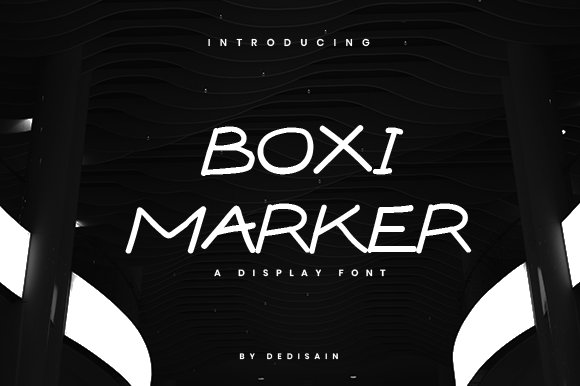
The Joy of Typography: Unveiling the Magic of Boxi Marker Font
As designers, we’ve all been there – staring at a blank canvas, waiting for that spark of creativity to strike. It’s in these moments of quiet contemplation that we discover the beauty of typography. For me, it was the discovery of the Boxi Marker Font that reignited my passion for design. This delightful display font is more than just a collection of letters – it’s a reflection of love and dedication poured into every stroke.
Boxi Marker Font is designed to bring a touch of whimsy and charm to any project. With its playful, hand-drawn feel, it’s perfect for designers looking to add a personal touch to their designs. Whether you’re creating a logo, social media graphics, or a wedding invitation, Boxi Marker Font is sure to bring a smile to your face and a touch of warmth to your audience.
Key Features of Boxi Marker Font
- Unique Characteristics: Boxi Marker Font features a unique, hand-drawn style with bold lines and geometric shapes, giving it a distinctive and eye-catching appearance.
- Typography: The font has a clean, modern typography with clear letterforms and precise spacing, making it highly legible and easy to read.
- Customization: The font includes a range of OpenType features, including ligatures, swashes, and ornaments, allowing designers to add a personal touch to their designs.
Boxi Marker Font Review
Overall, I’m quite impressed with Boxi Marker Font. It has a unique, playful vibe that can add a lot of character to your designs.
- Unique, hand-drawn style that sets it apart from more traditional fonts
- Good for use in creative fields like art, design, or even kids’ products
- Clean and crisp lines make it easy to read at various font sizes
- May not be suitable for formal or professional applications due to its casual, playful nature
- Some letters may be difficult to read at very small font sizes
- Limited language support, may not be suitable for multilingual designs
Overall, I think Boxi Marker Font is a great choice for designers looking to add a bit of personality to their projects. While it may not be the best fit for every application, its unique style and versatility make it a great addition to any designer’s toolkit.
Boxi Marker Font Practical Application Guide
Tips for Getting the Most Out of Boxi Marker Font
Use bold font weights to create a striking effect.
Combine Boxi Marker Font with other fonts to create a unique visual identity.
Experiment with different font sizes and colors to create contrast and emphasis.
Boxi Marker Font is ideal for:
Creating eye-catching headlines and titles.
Designing illustrations and graphics.
Adding a playful touch to branding and marketing materials.
Alternatives to Boxi Marker Font
Great Vibes is a beautiful, elegant script font perfect for creating a whimsical and playful atmosphere. It’s ideal for use in logos, invitations, and other design elements where a touch of sophistication is needed. Great Vibes is a more elegant alternative to Boxi Marker Font, offering a softer, more refined look.
Pacifico is a modern script font that exudes a sense of relaxation and calmness. It’s perfect for use in designs that require a laid-back, beachy vibe. Pacifico is a more laid-back alternative to Boxi Marker Font, offering a more casual and effortless feel.
Playfair Display is a luxurious, high-end script font that’s perfect for use in designs that require a touch of elegance and sophistication. It’s ideal for use in logos, titles, and other design elements where a sense of luxury is needed. Playfair Display is a more formal alternative to Boxi Marker Font, offering a more refined and sophisticated look.